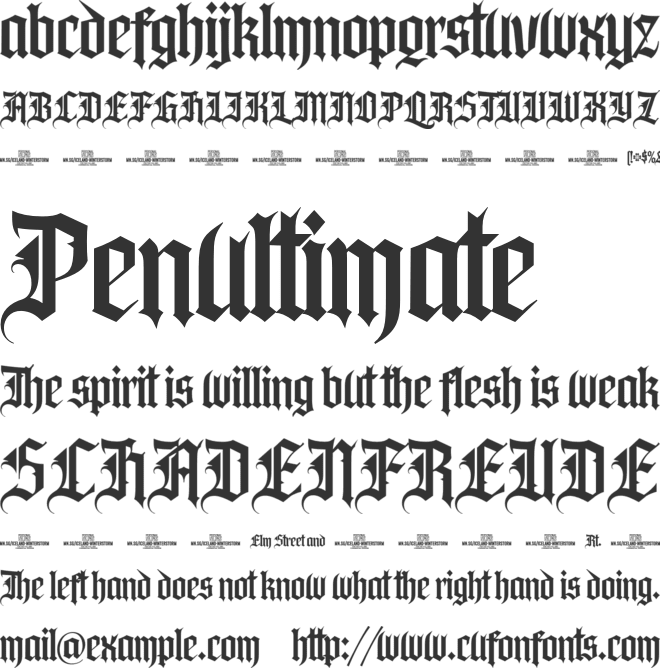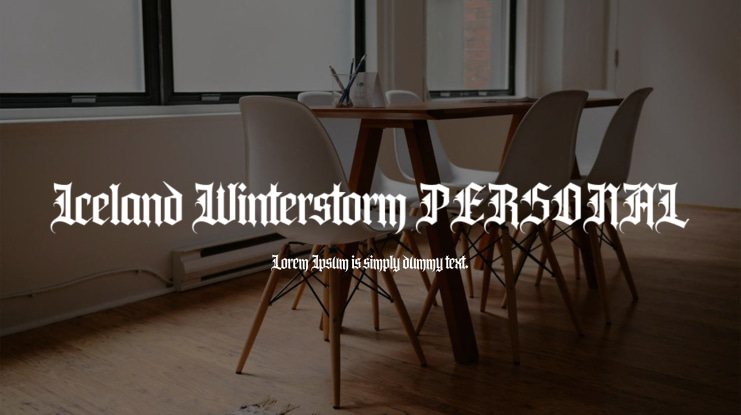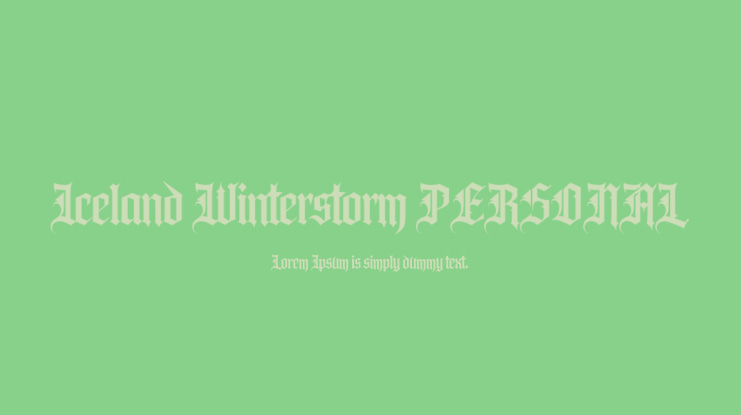
Iceland Winterstorm PERSONAL Font
Mans Greback
Iceland Winterstorm is a bold blackletter typeface that beautifully combines medieval gothic artistry with the raw, icy appeal of winter. Its sharp, angular forms resemble frost-covered edges, evoking the chill of snow-laden landscapes and the dramatic allure of a frozen wilderness.